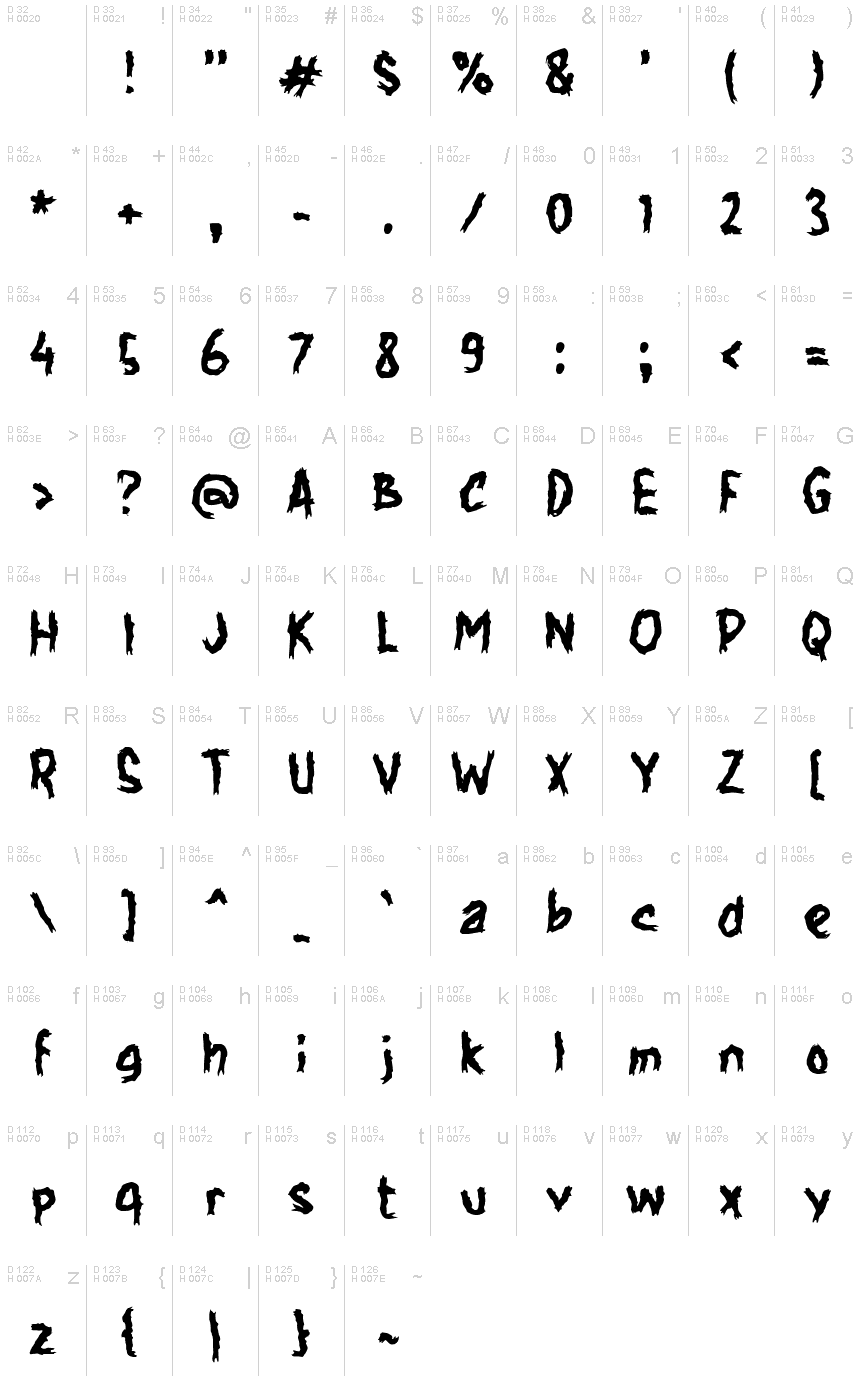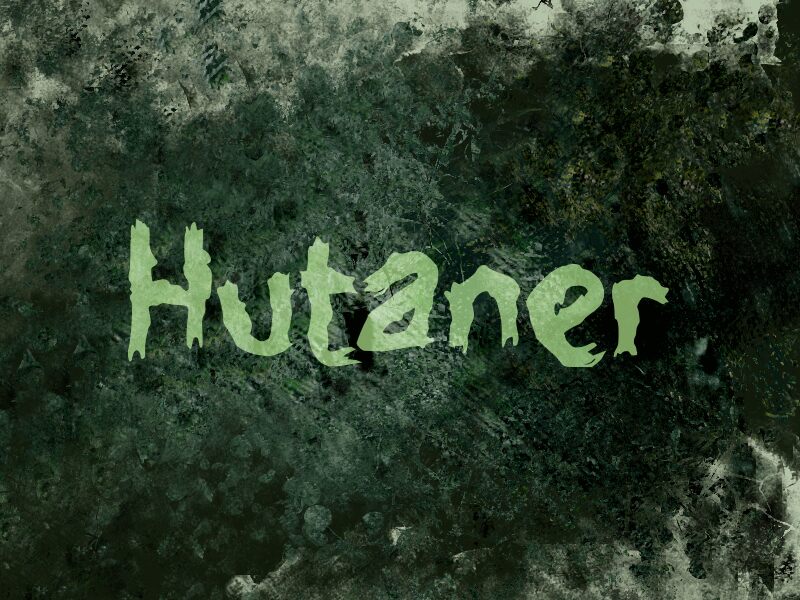
Hutaner
Hutaner, a hauntingly captivating display font by wep. With its semi-bold weight and brush style, this font exudes an eerie charm, making it perfect for chilling and spine-tingling projects.
From horror movie titles to Halloween party invitations, Hutaner adds an element of fear and excitement. Its unique design captures attention and conveys a sense of unease, making it ideal for haunted house brochures or ghost story book covers.
Let Hutaner unleash its bone-chilling magic on your next project!